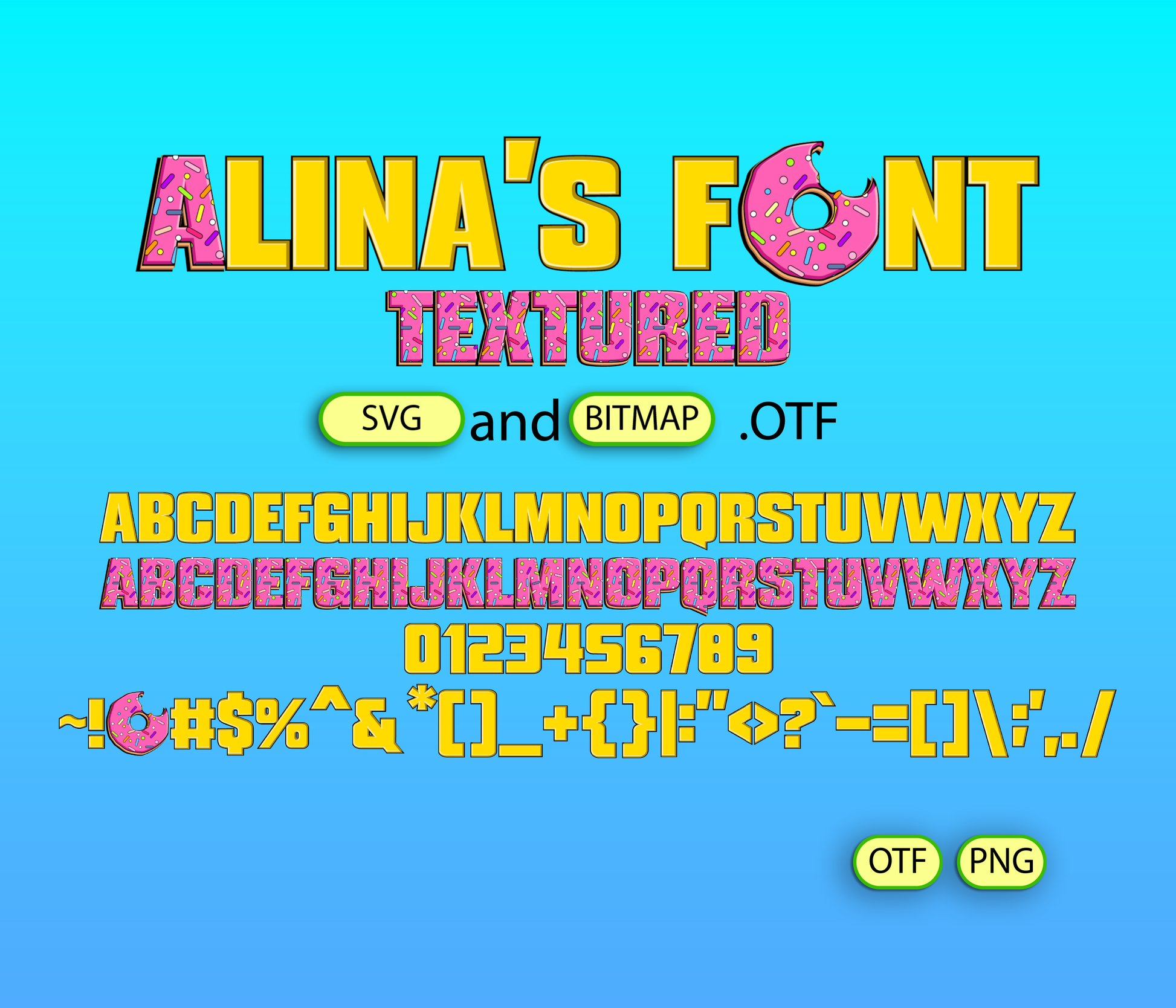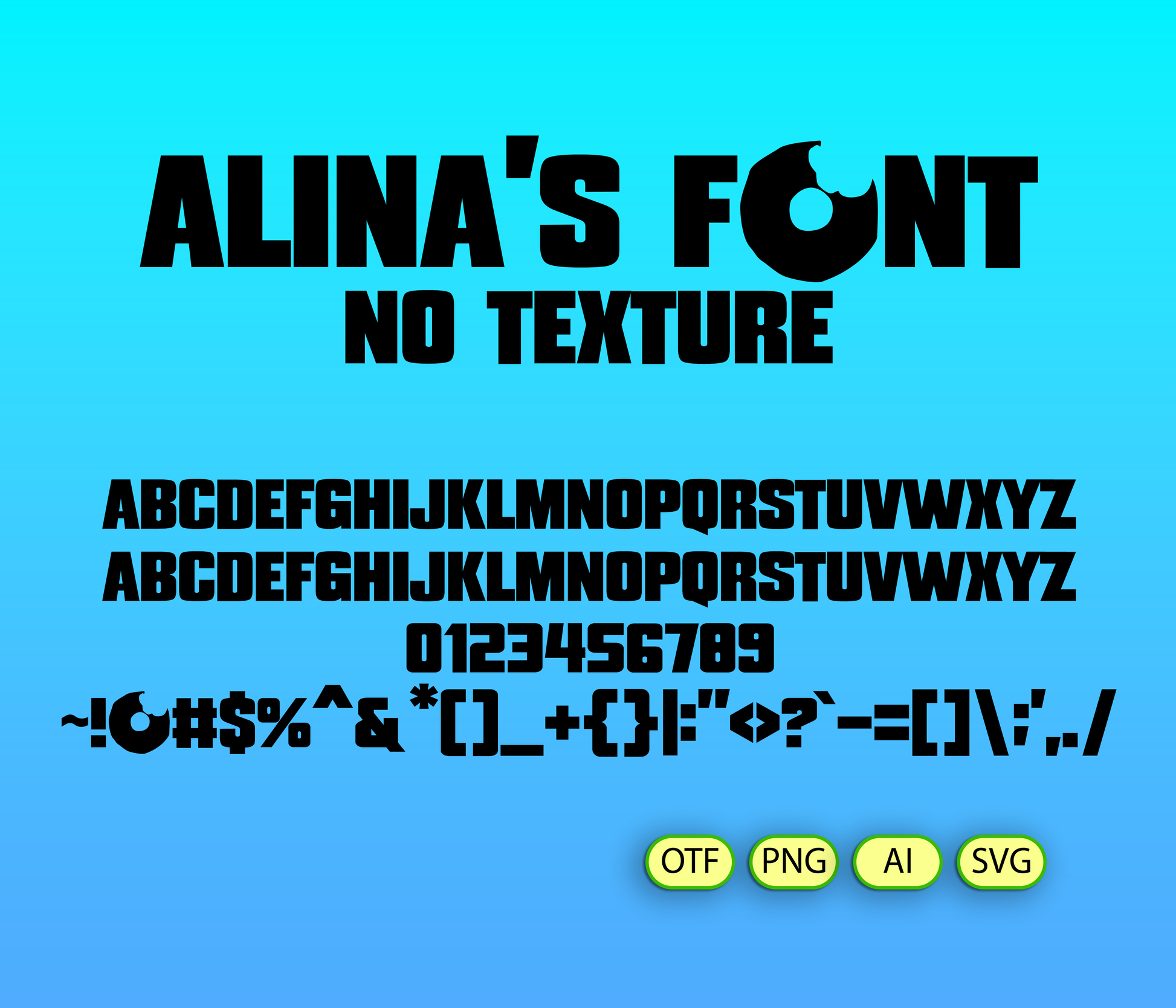
Springfield Cinema Font Textured
Springfield Cinema Font Animated Adventure Style
Step into the blockbuster world of animated feature films with our Springfield Cinema font, embodying the essence of big-screen comedy and cinematic cartoon storytelling. Designed for movie enthusiasts, animated film creators, cinema event organizers, and entertainment industry professionals, this font delivers the epic, theatrical energy of animated blockbusters to your creative projects. Create spectacular movie night materials, cinema-themed merchandise, or dramatic digital content with the grand, adventurous spirit of animated feature films and their larger-than-life entertainment value.
Our Springfield Cinema font features bold, cinematic letterforms and theatrical presence that captures the epic yet humorous aesthetic of animated movie productions and big-screen entertainment experiences. Perfect for:
- Film Events: Create impressive movie premiere invitations, cinema festival signage, and theatrical screening announcements with authentic blockbuster appeal
- Entertainment Design: Excellent for animation studio promotions, movie theater branding, and film festival materials that celebrate cinematic animation excellence
- Digital Media: Enhance movie review blogs, entertainment websites, and cinema social media with headers that express theatrical grandeur and animated spectacle
- Promotional Content: Add genuine character to movie merchandise, theatrical displays, and marketing materials for cinema or animation-themed events
- Creative Projects: Bring cinematic magic to home theaters, movie night decorations, and artistic endeavors inspired by the aesthetics of animated feature film culture